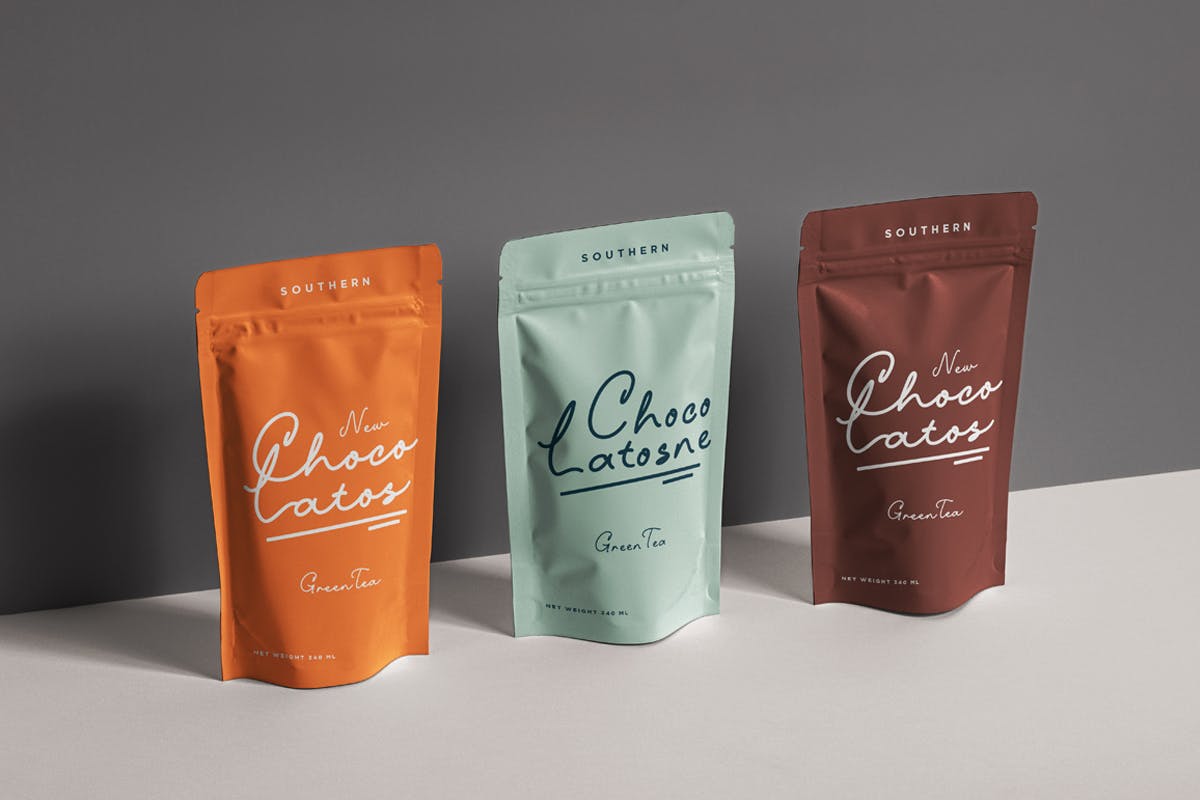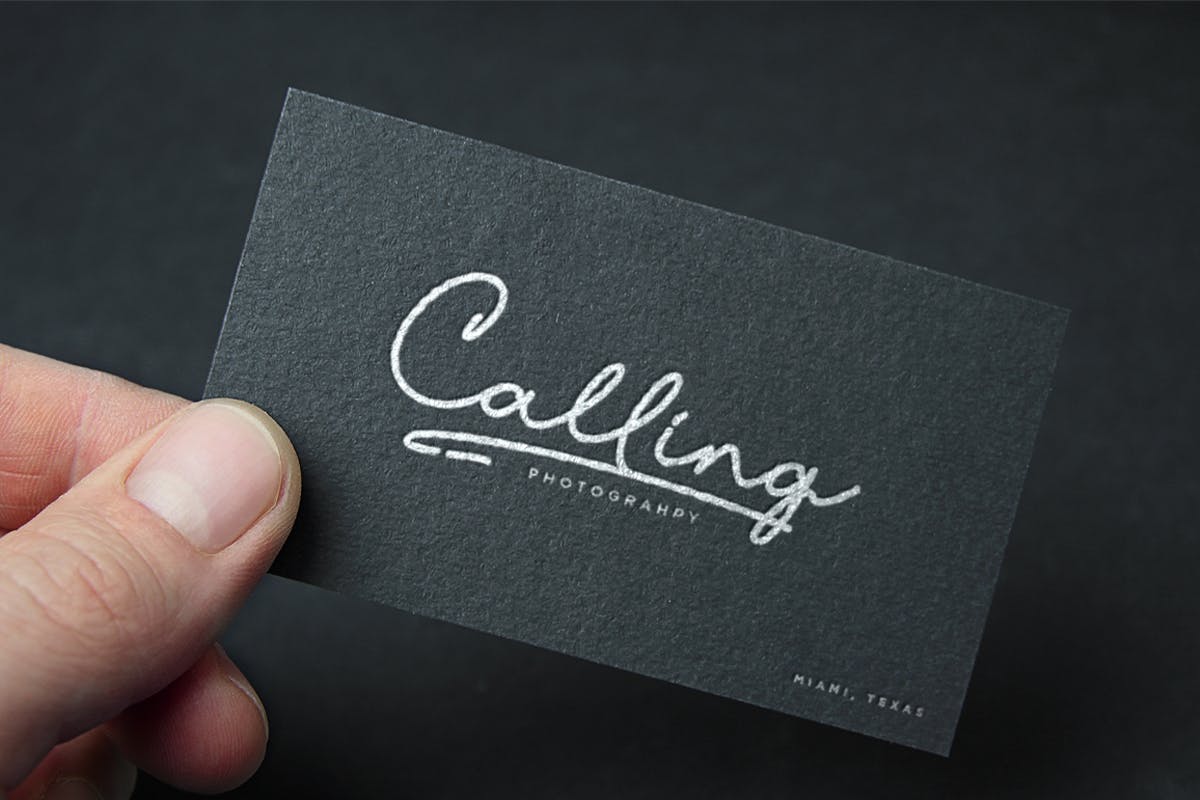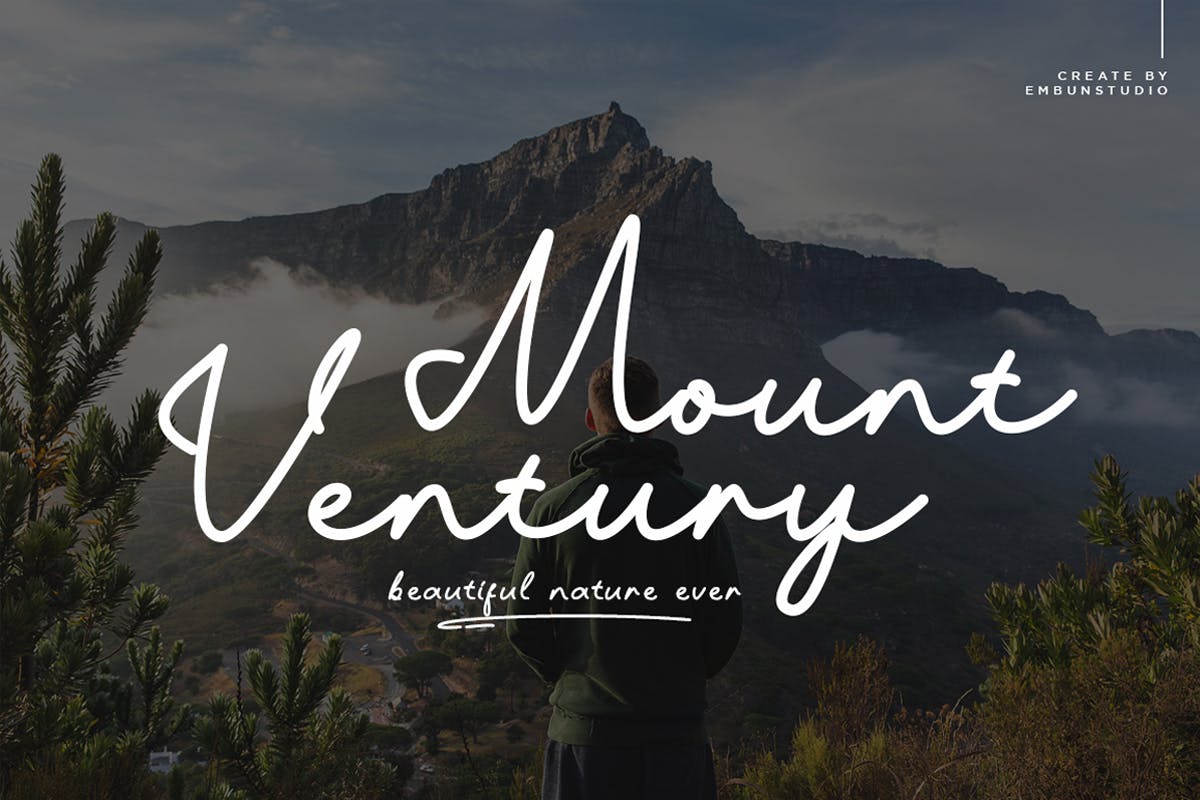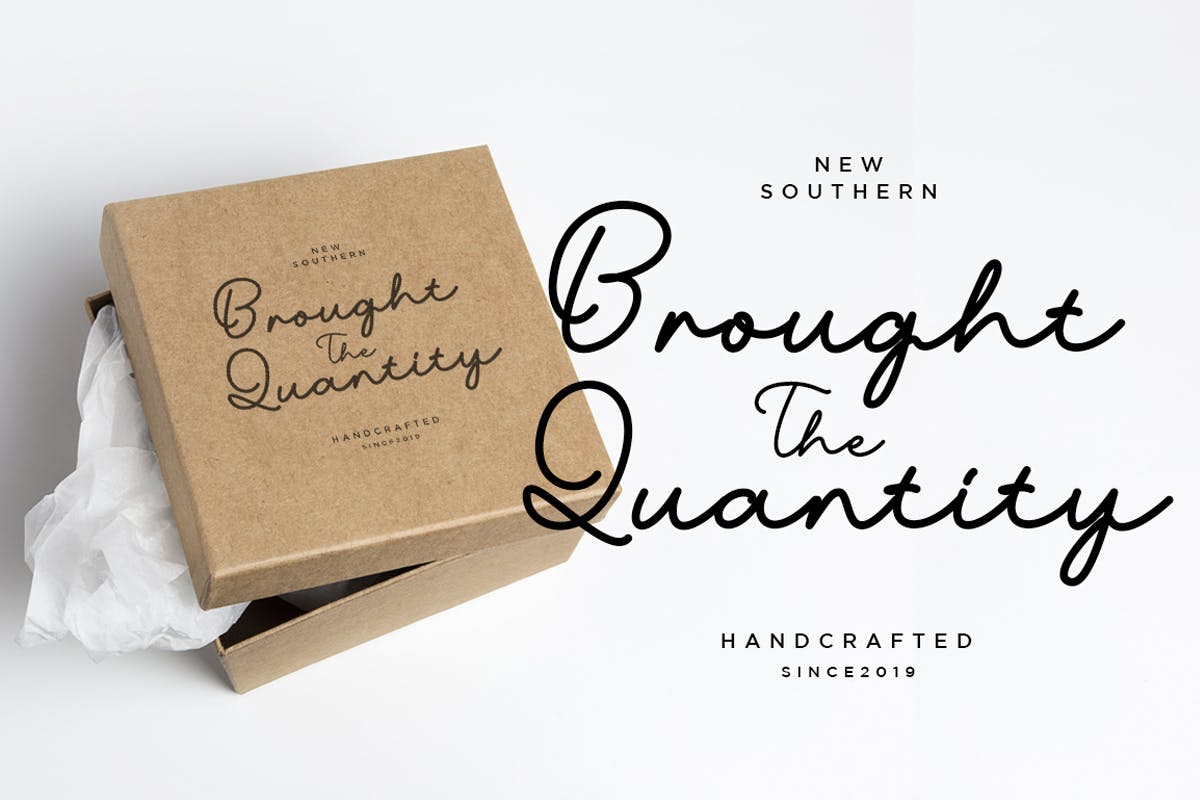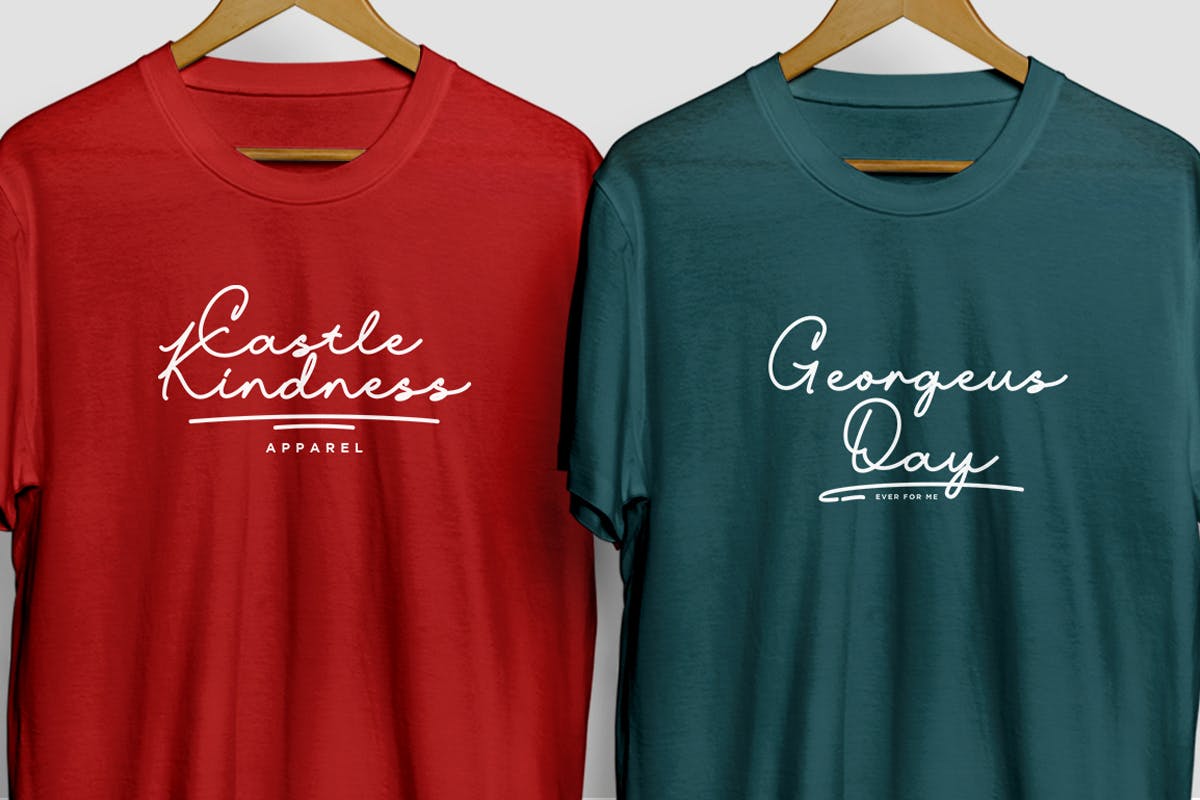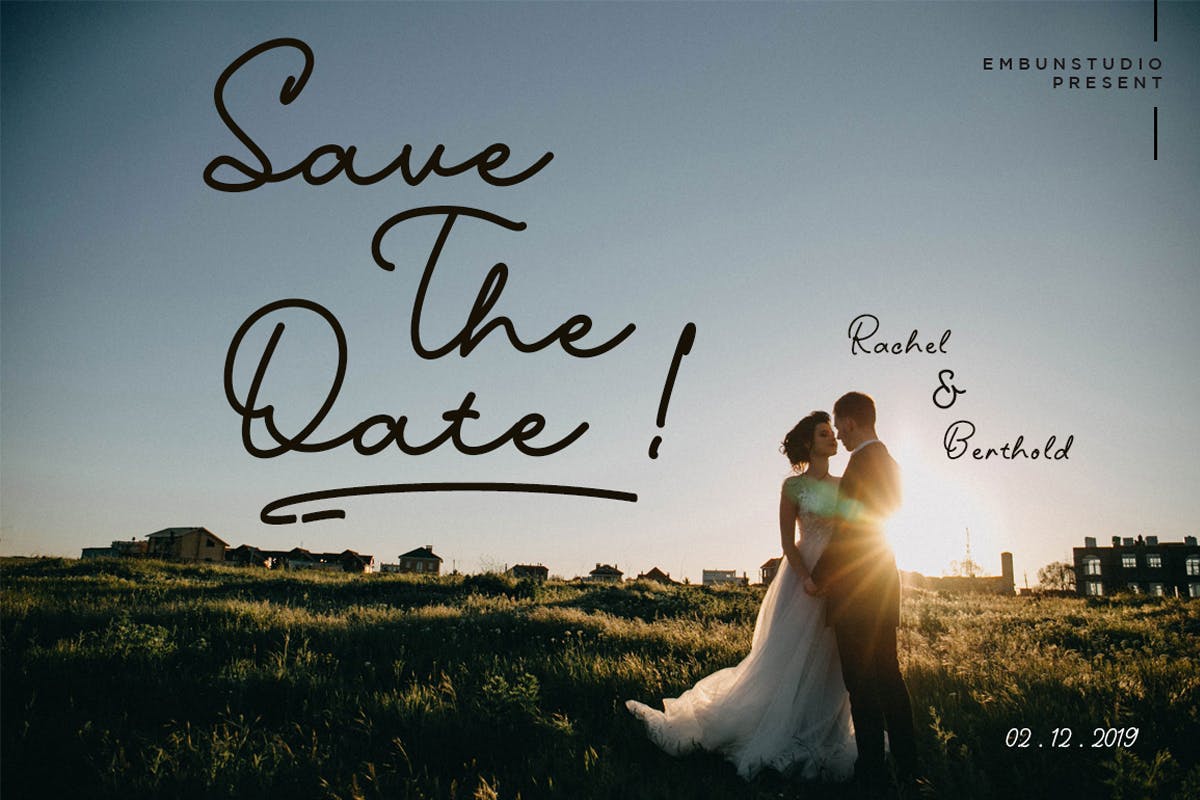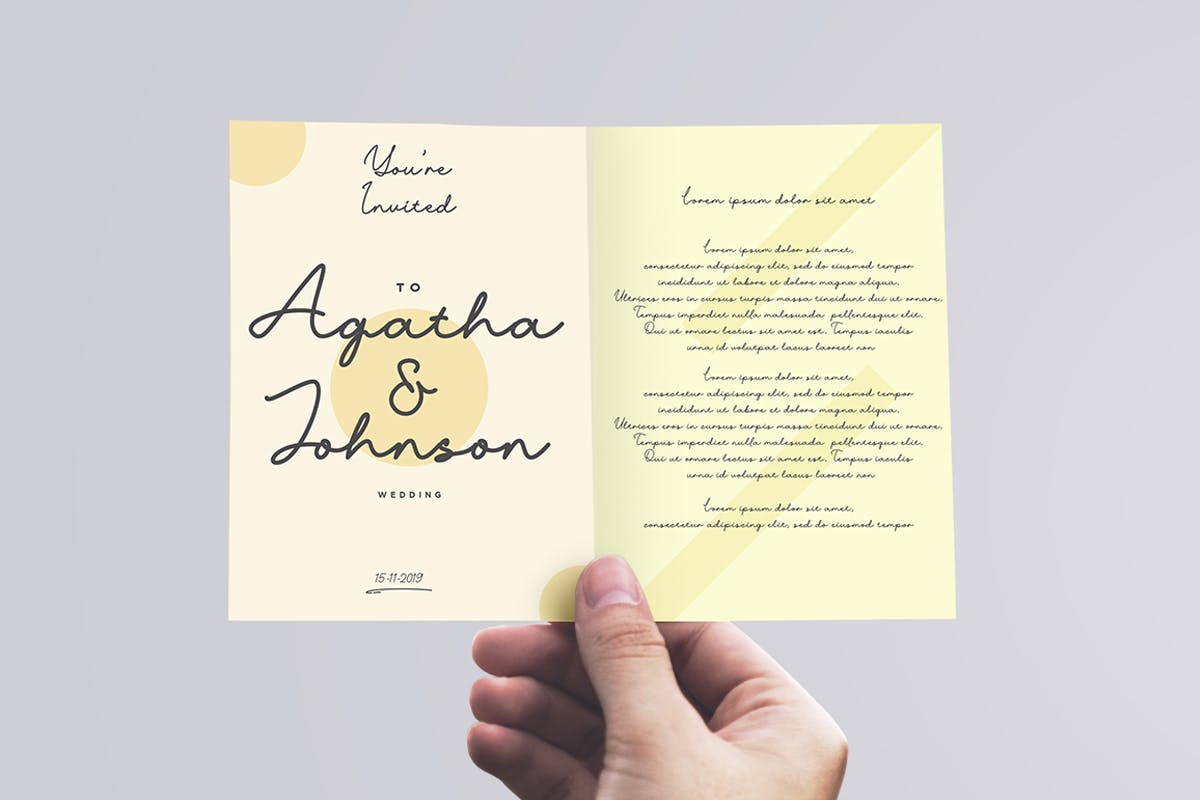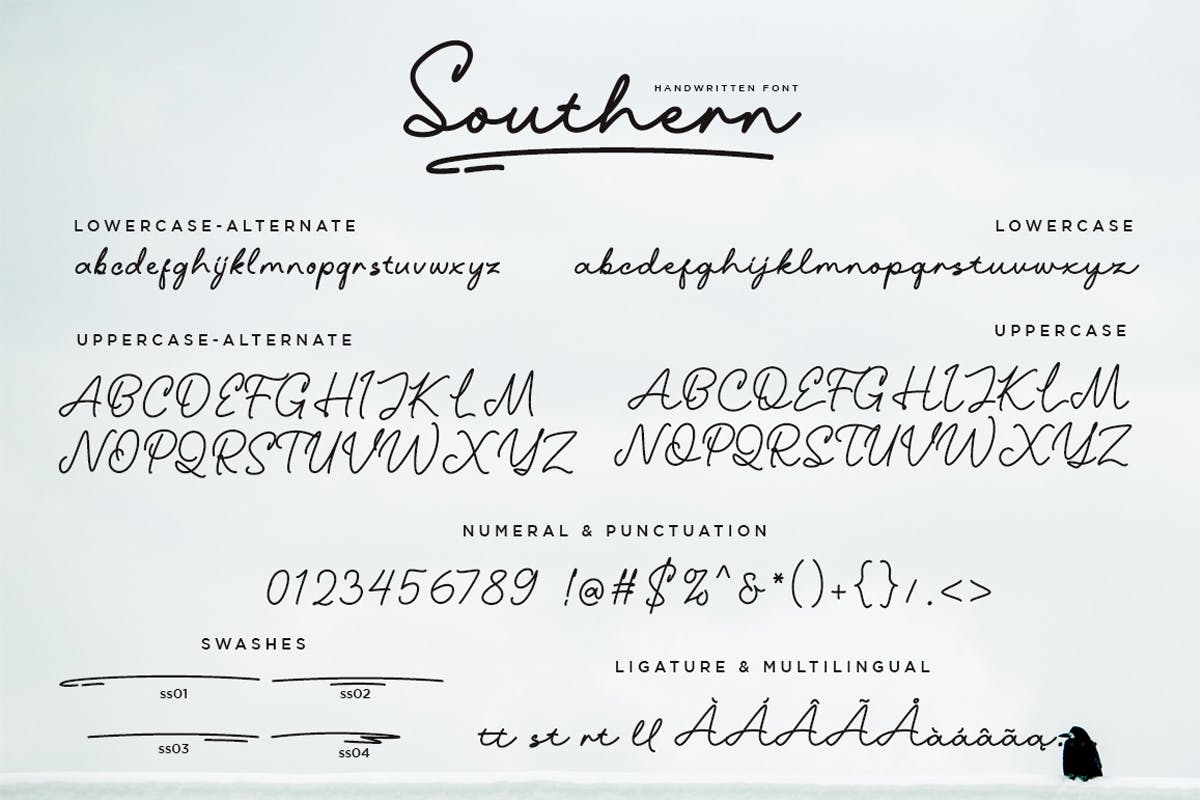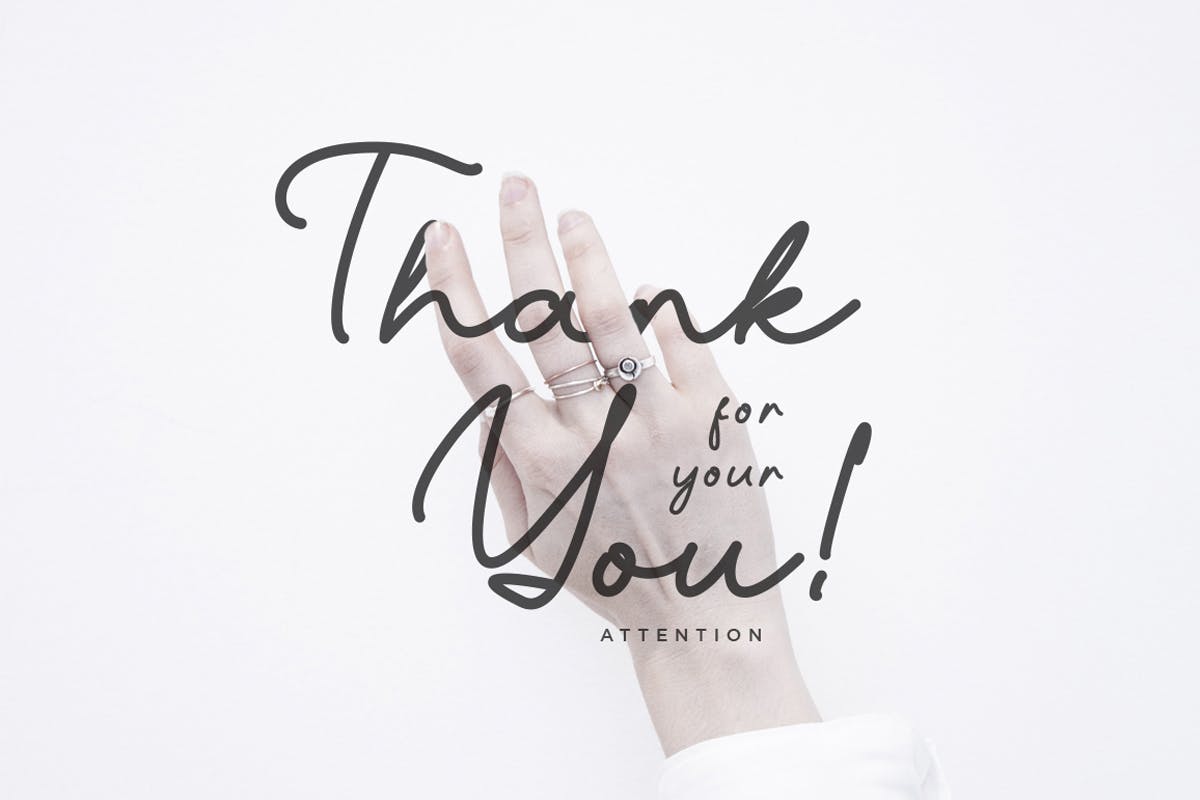
Free Southern Handwritten Font
Hello everyone! Today, we have an awesome script font which is Free Southern Handwritten Font. It is a handwritten font, you can get this font for using it on your projects such as wedding invitation, gift cards, flyer, magazine and more. This awesome font is coming OTF file format that you can install and use it on your devices. However, this free font is available for personal use license, but you can get more features by clicking the premium version button below.